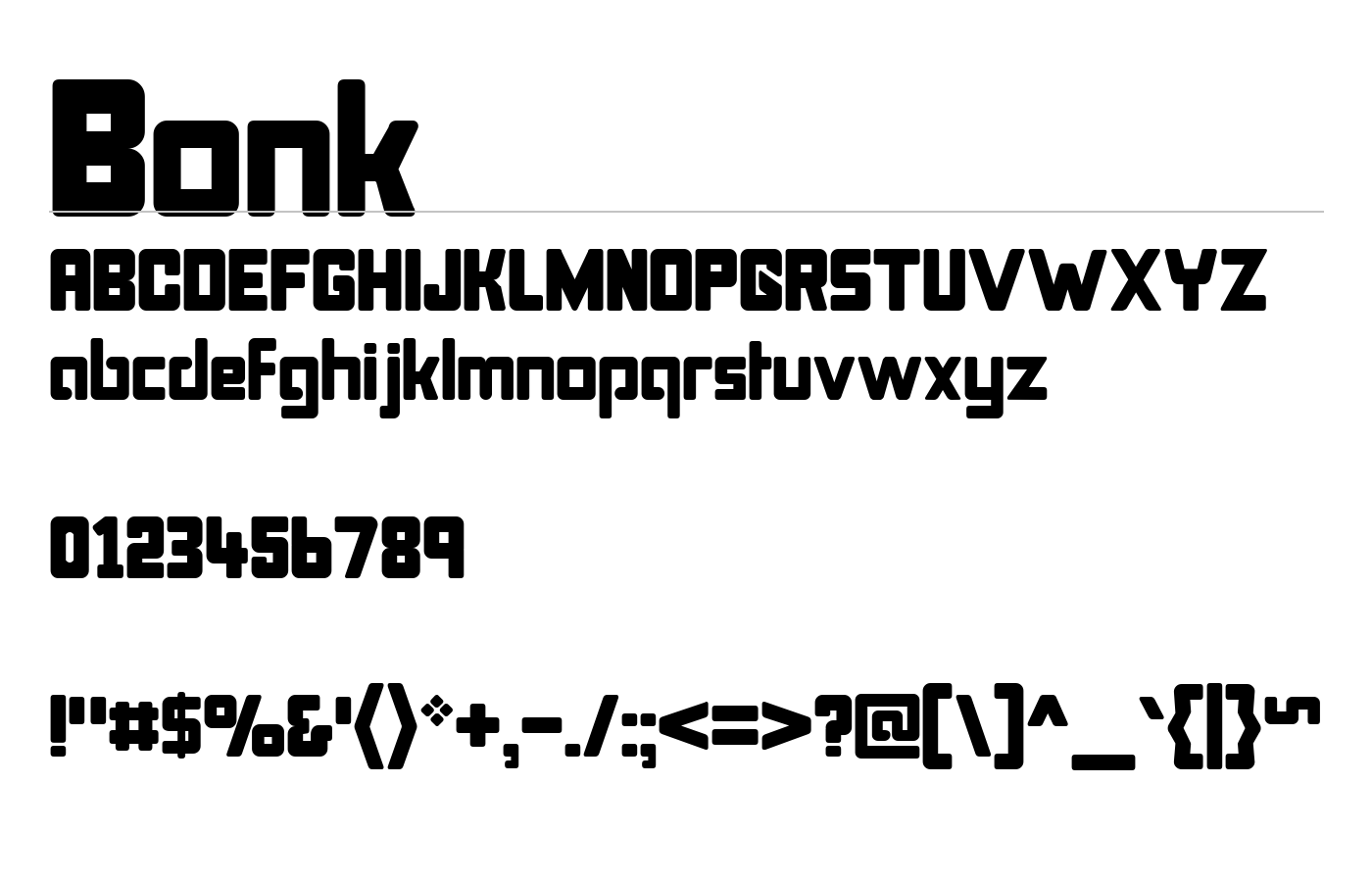
Bonk is a bold, condensed sans serif font with a modern and slightly playful edge. Its thick, blocky letterforms feature rounded corners and unique geometric shapes, making it eye-catching and ideal for attention-grabbing headlines, logos, and display uses. This font works well in contexts that need a strong, quirky personality with a futuristic or tech-inspired vibe.
Bonk Font
About Bonk Font
| Font family | Bonk Font |